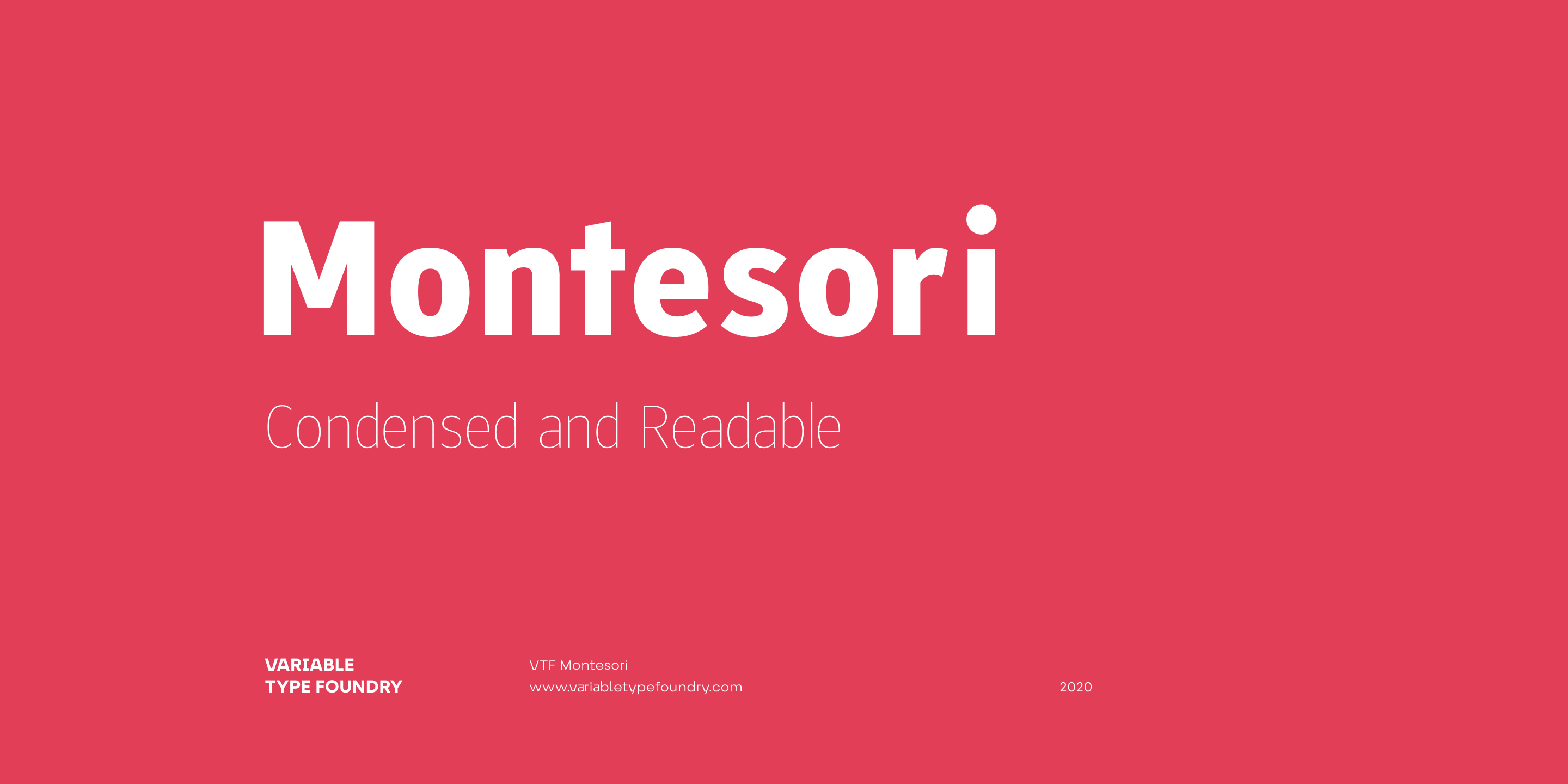
Montesori Font is a versatile and contemporary sans-serif typeface, often characterized by its clean lines, open forms, and excellent legibility, making it ideal for clear and straightforward communication. Inspired by principles of clarity and structured learning, it's an excellent choice for educational materials, children's content, corporate reports, and digital interfaces where readability is paramount. Imagine it providing accessible text for an e-learning platform, lending a friendly yet professional feel to school newsletters, or ensuring impeccable clarity for infographics. This font is also superb for website body text, presentations, and any project where efficiency, clarity, and an approachable visual identity are key. It doesn't just display text; it guides the reader's eye with effortless ease and clarity.
What makes Montesori Font so exciting is its remarkable ability to blend simplicity with thoughtful design, making it highly effective for a wide range of applications, especially where information needs to be conveyed clearly and without distraction. It possesses a contemporary charm that feels both robust and airy, ensuring both aesthetic appeal and outstanding readability. This unique combination allows designers to create visually compelling content that is highly functional and effortlessly modern. It’s a font that speaks with a clear, confident voice, making it ideal for brands and content creators who want to convey reliability, knowledge, and a sophisticated, no-fuss aesthetic. Its balanced proportions and strong legibility make it a go-to for both headlines and extended text.
The Montesori Font family typically offers a comprehensive range of weights and styles to provide extensive design flexibility and allow for nuanced typographic expressions. While the exact variations can differ based on the specific designer or foundry, you can generally expect to find key members that support diverse layout needs, such as:
Montesori Thin
Montesori Extra Light
Montesori Ultra Light
Montesori Light
Montesori Regular
Montesori Medium
Montesori Semi Bold
Montesori Bold
Montesori Ultra Bold
Montesori Black
Montesori Italic (for most, if not all, weights)
Montesori Alt Regular (an alternative stylistic version if available)
These numerous weights and styles, often accompanied by features like contextual ligatures, fractions, and stylistic alternates, empower designers to create effective visual hierarchies, emphasize important information, and maintain a consistent, polished, and contemporary look throughout all digital and print assets. The opportunity to utilize Montesori Font Free Download is an excellent way to experience its versatile elegance and modern appeal for your personal projects.